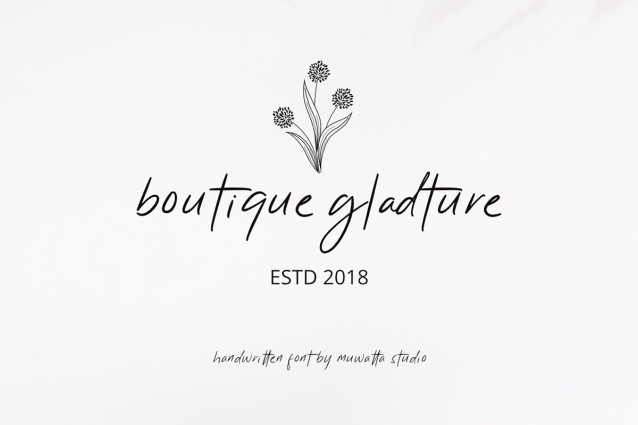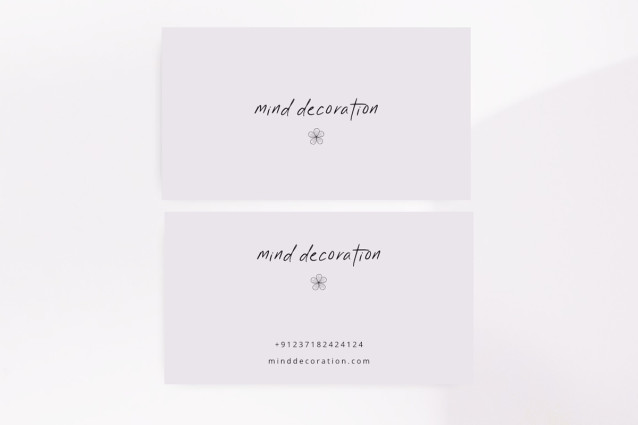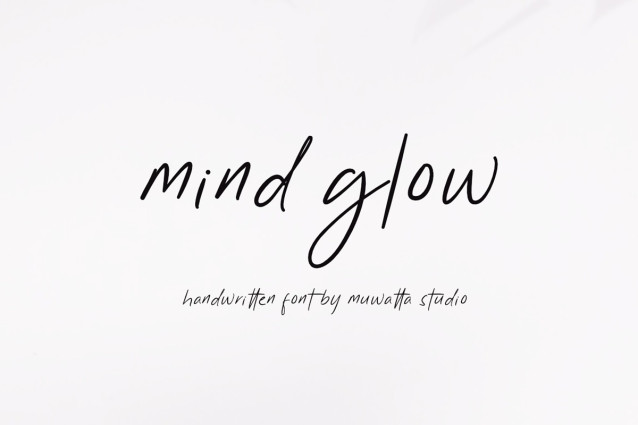
Mind Glow Font
Mind Glow Handwritten is a beautifully organic font that radiates a warm, personal touch. Inspired by natural elements and a relaxed, handwritten style, this typeface is perfect for brands that focus on sustainability, wellness, and eco-conscious products. Its smooth, flowing letters evoke a sense of calm and authenticity, making it ideal for packaging, invitations, and branding projects that aim to connect with an audience seeking simplicity and nature-inspired design. Mind Glow Handwritten adds a unique, handcrafted feel to any creative work, enhancing its organic and approachable appeal.